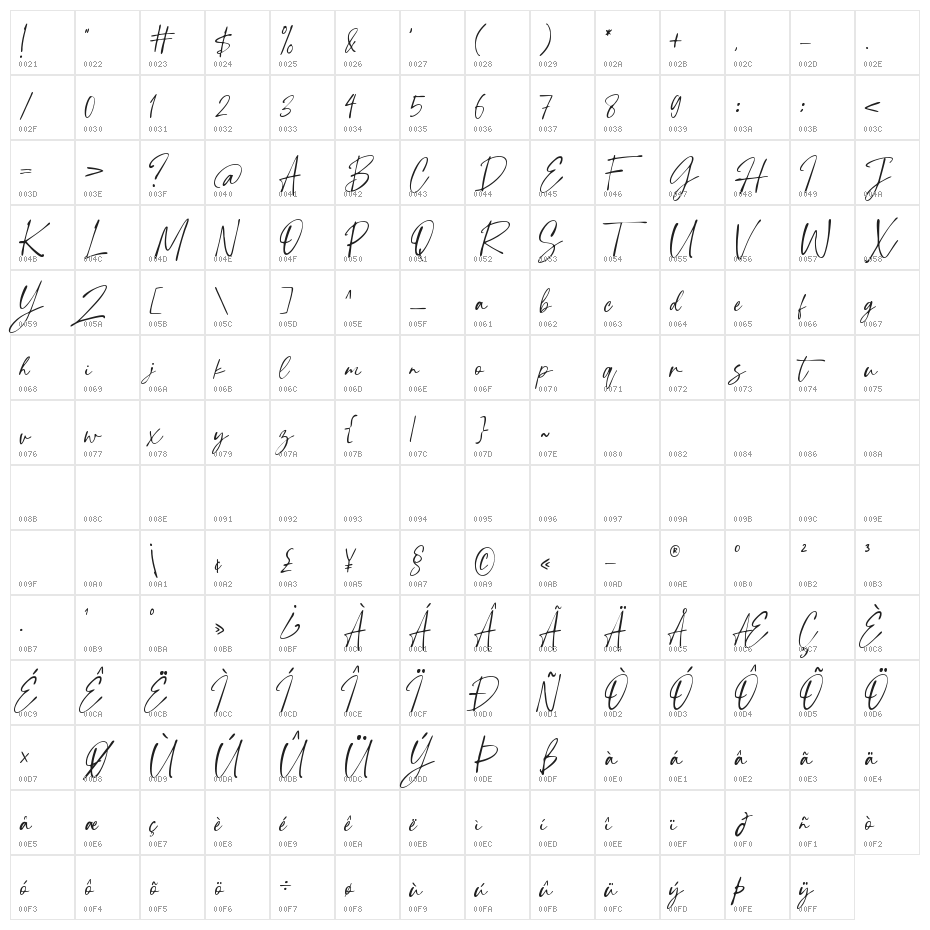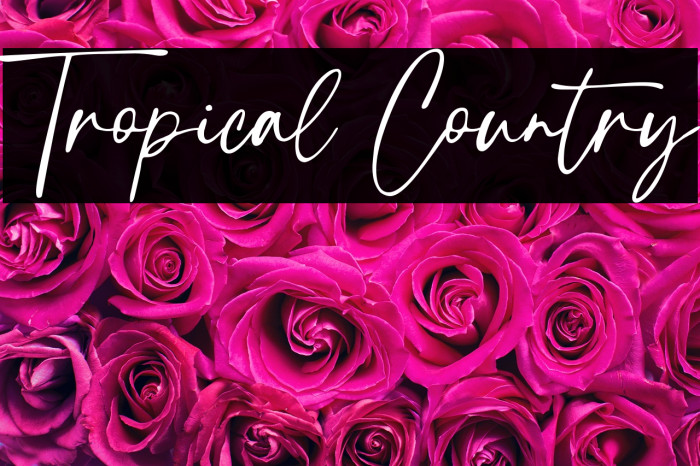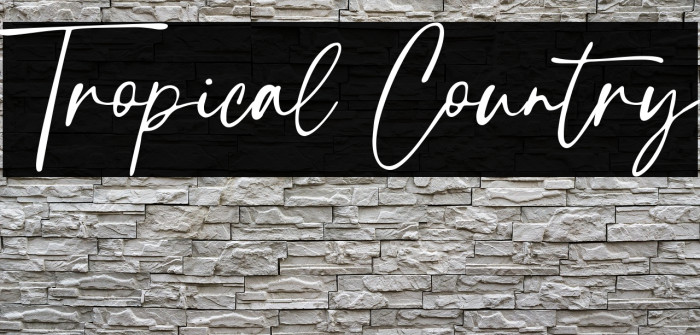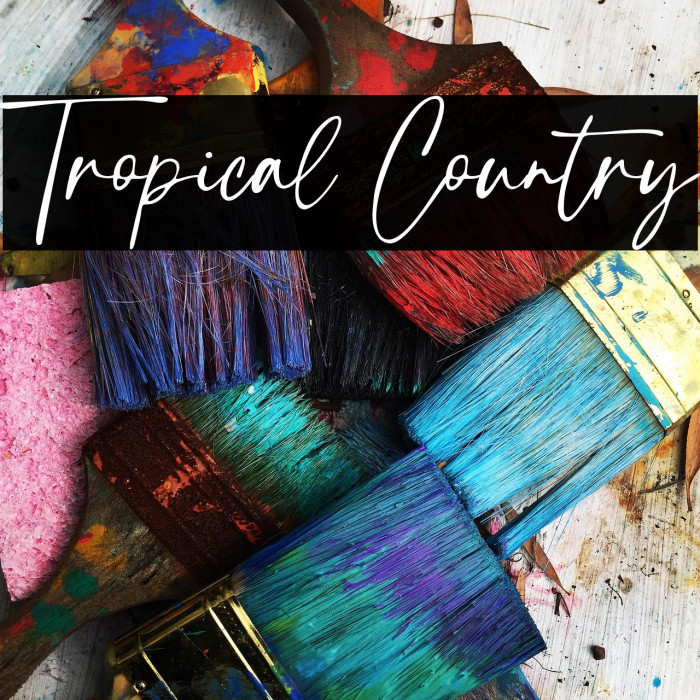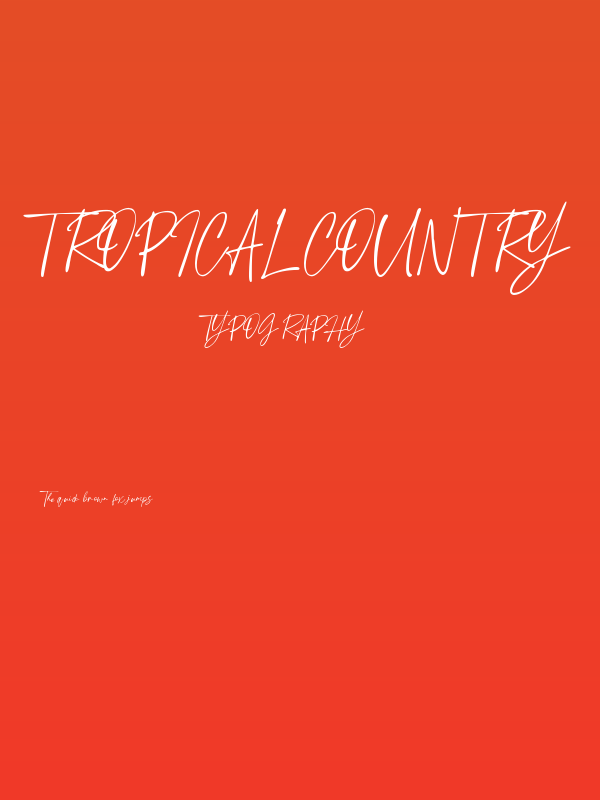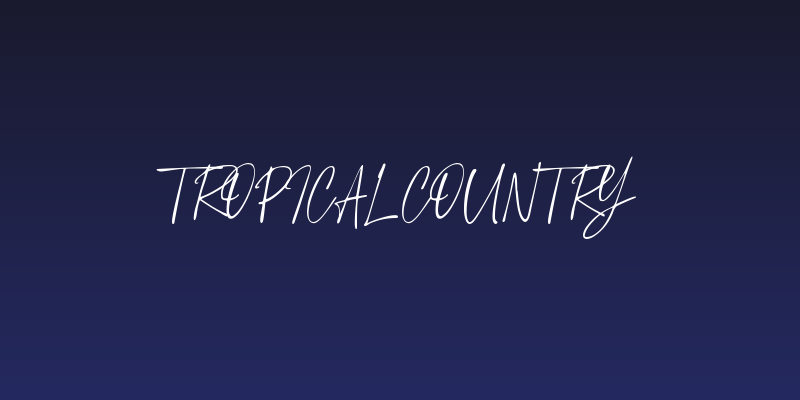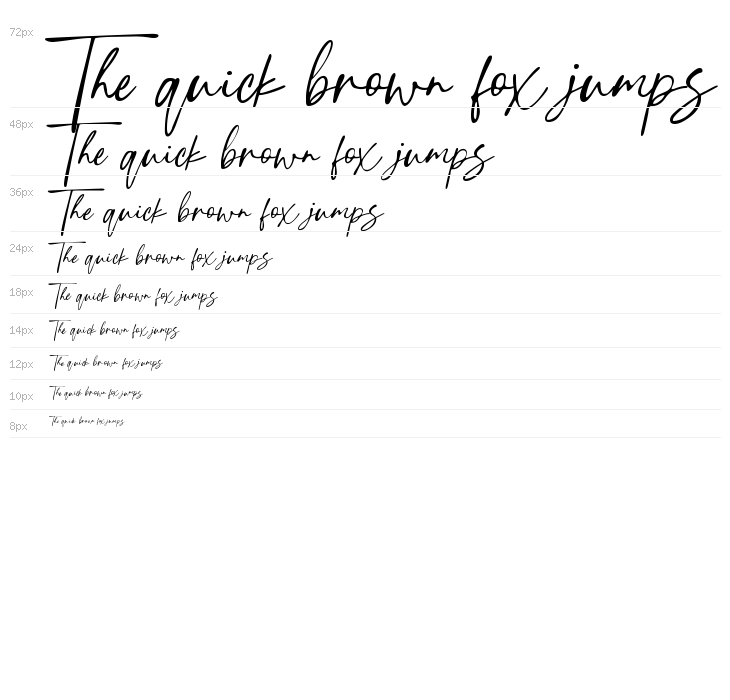
Tropical Country Font
Tropical Country Description
This font features a lively and dynamic handwritten style, characterized by its fluid and cursive letterforms. The uppercase letters exhibit a playful yet elegant flair, with each character maintaining a consistent slant that adds to the overall sense of movement. The lowercase letters complement this with a more relaxed and flowing appearance, enhancing readability while retaining the font's distinctive personality. Numbers and special characters are crafted with the same attention to detail, ensuring a cohesive look across all elements. The strokes vary in thickness, providing a medium contrast that adds depth and interest without compromising legibility. This font's unique style makes it suitable for projects that require a personal touch or a creative edge.